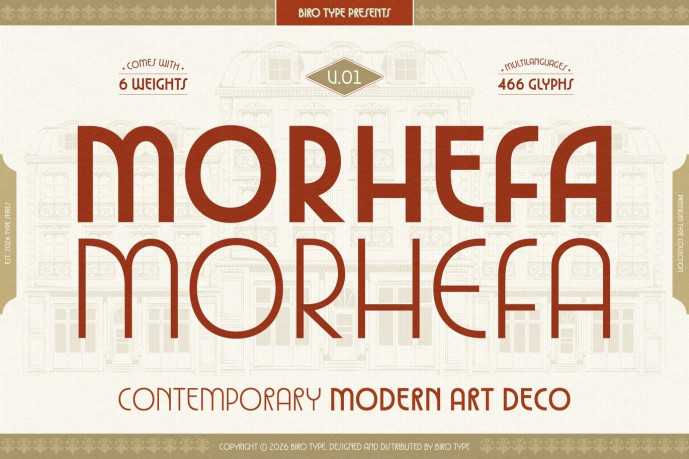
Morhefa Font
Designer: biro_type
Morhefa Font is a contemporary Art Deco typeface inspired by luxury hospitality and timeless architecture. Combining refined geometry, elegant curves, and distinctive letterforms, it lends a sophisticated retro-modern character to hotel branding, restaurants, editorial layouts, and logos. Available in six carefully crafted weights, Morhefa offers versatility while maintaining a refined and welcoming presence.